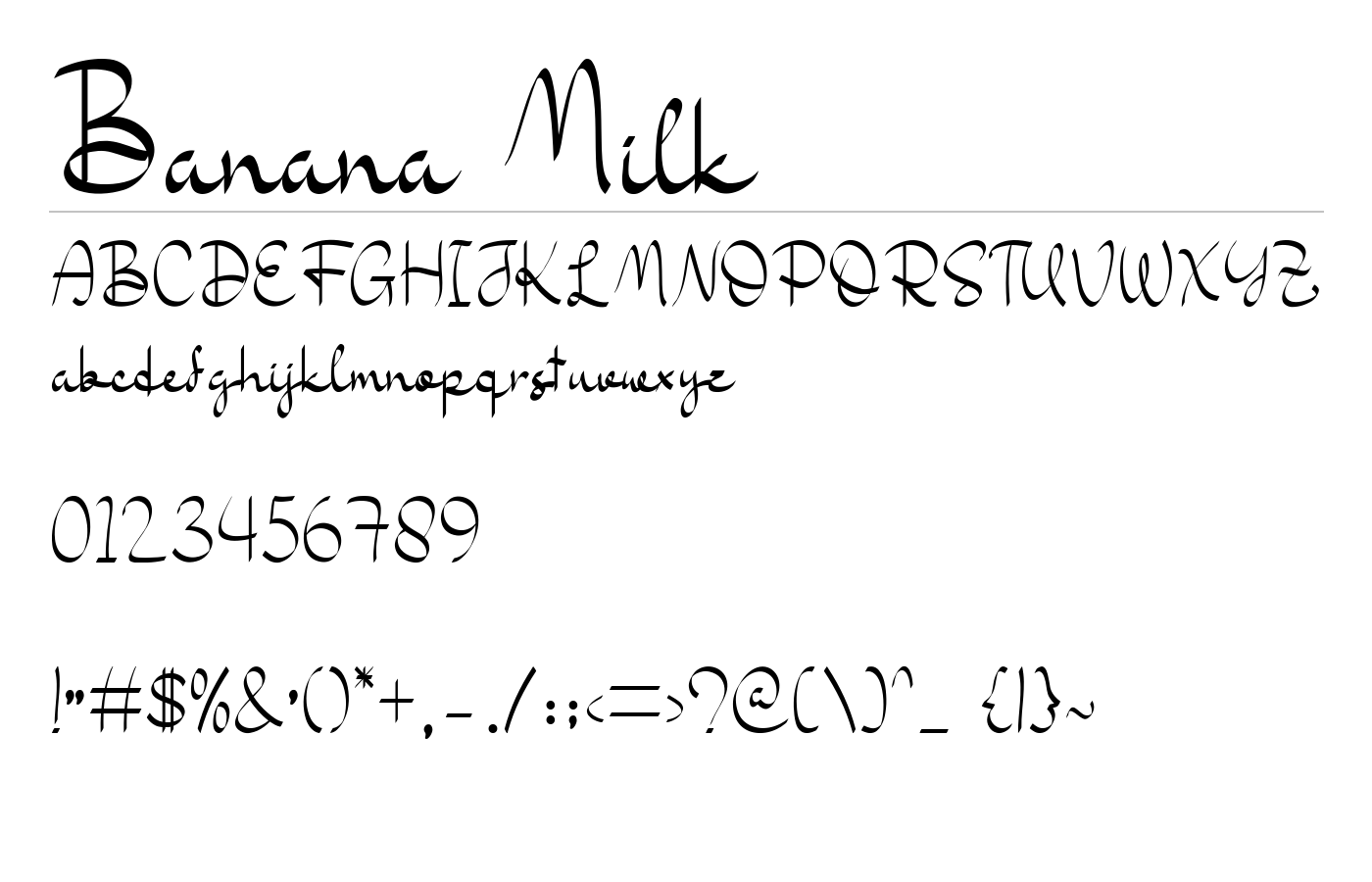
Banana Milk is a playful and quirky script-inspired font with a handwritten charm, featuring slender strokes and varying line thickness that add a sense of elegance and whimsy. Its irregular letterforms and lively curves make it perfect for creative, informal designs such as logos, invitations, or packaging that aim for a friendly and artistic vibe. This font works best in display settings where its unique personality can shine and engage viewers.
Banana Milk Font